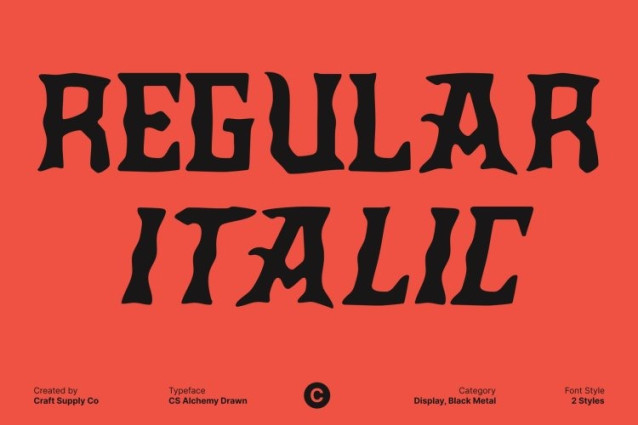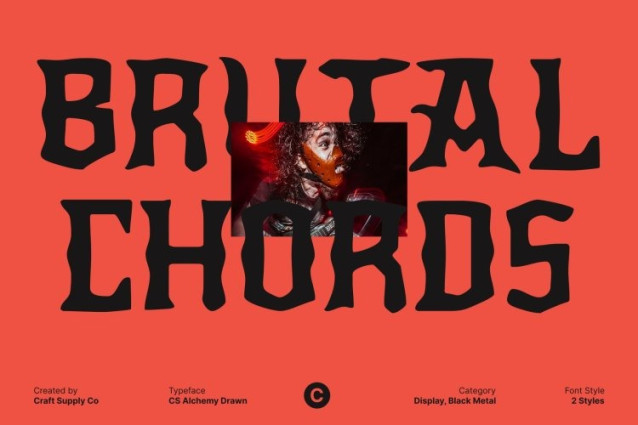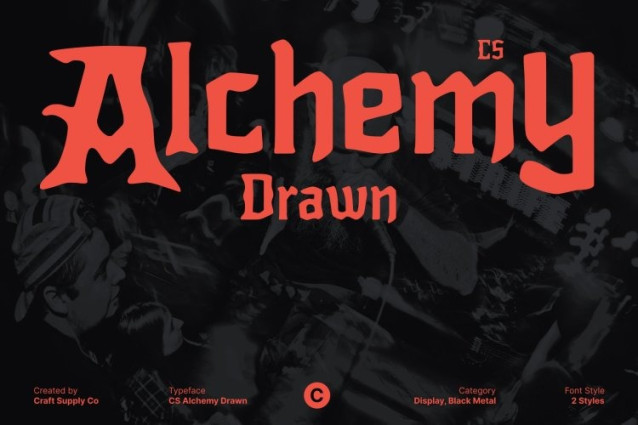
CS Alchemy Drawn Font
CS Alchemy Drawn Font This is a black metal display font forged from raw energy and uncompromising attitude. Inspired by extreme music culture, this typeface features jagged spikes, chaotic strokes, and razor-sharp edges that radiate darkness, aggression, and untamed power. Every letterform feels brutal and fearless, capturing the primal spirit of black metal aesthetics in its purest form.
Chaotic Letterforms with Hand-Drawn Ferocity
Built with uneven structures and distorted rhythms, this font embraces visual chaos as its strength. The hand-drawn effect adds a natural, organic roughness that enhances its wild personality, making each character feel unique and alive. This imperfect, aggressive texture reinforces the font’s anarchic tone raw, expressive, and intensely rebellious.
Dark Artistry Beneath the Brutality
Beyond its violent edge, this font carries an artistic depth. Intricate details and handcrafted irregularities reveal a sense of dark craftsmanship, reflecting the balance between destruction and beauty often found in underground and extreme art scenes. It’s not just harsh it’s expressive and conceptually powerful.
Perfect for Extreme and Underground Projects
This font is ideal for band logos, album covers, metal posters, underground fashion, dark art projects, and avant-garde events. When your design demands raw power, authenticity, and a commanding dark presence, this font delivers chaos with unmistakable impact.